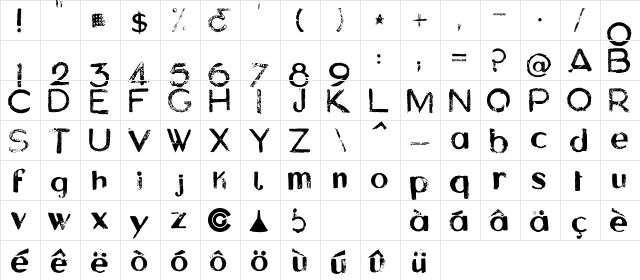
Asylum Regular
| Designer | Chirurgie Graphique |
Design Context for Asylum Typeface
Asylum is a composed and adaptable typeface that performs quietly and consistently across a wide range of design contexts.